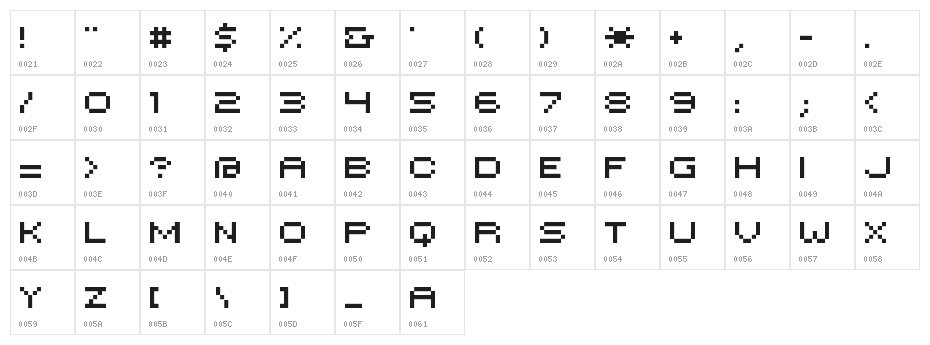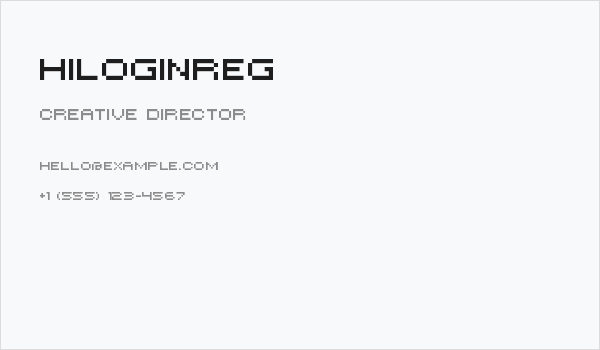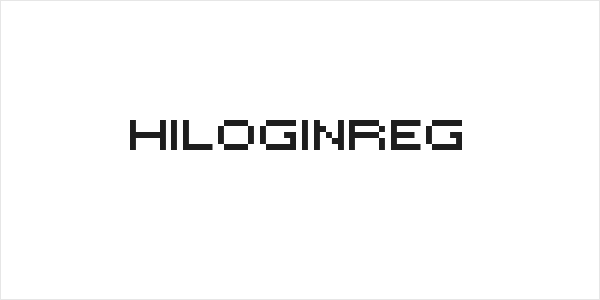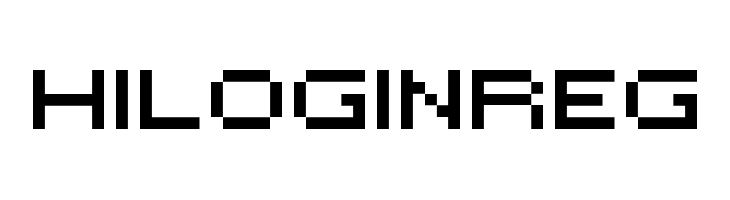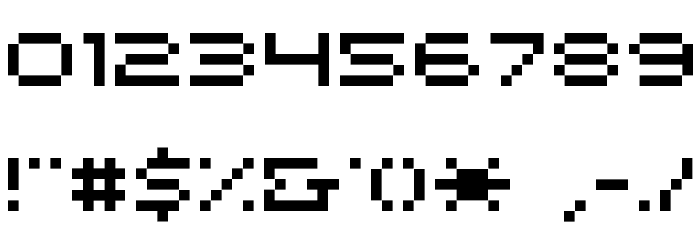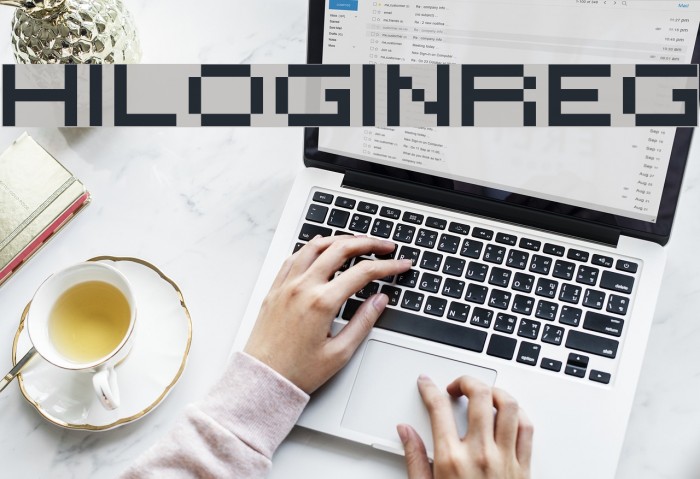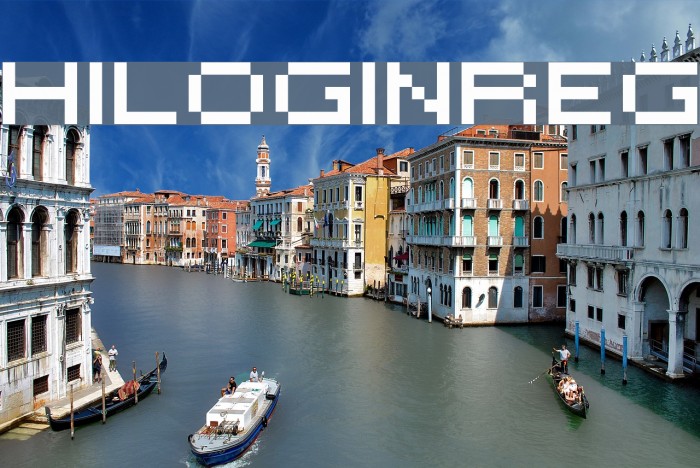
HILOGINREG Font
✎ Pixel
| カテゴリ | Pixel |
| 全体的なスタイル | Retro, Digital |
| 用途 | Headlines, Logos, Digital displays |
| おすすめプロジェクト | Ideal for projects that require a retro or digital theme, such as video game designs, tech-related branding, or nostalgic marketing materials. |